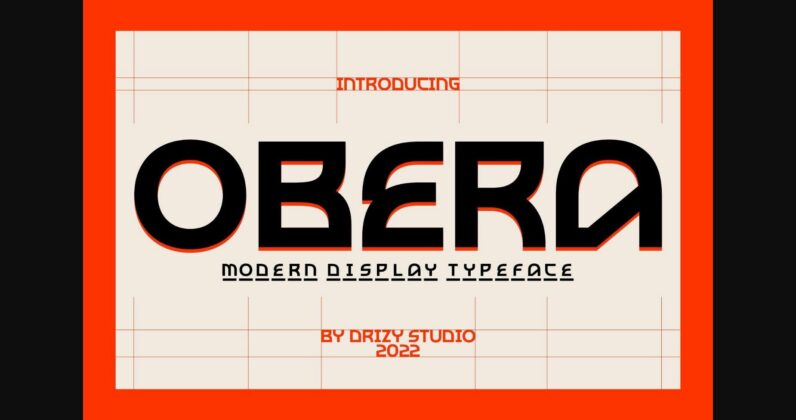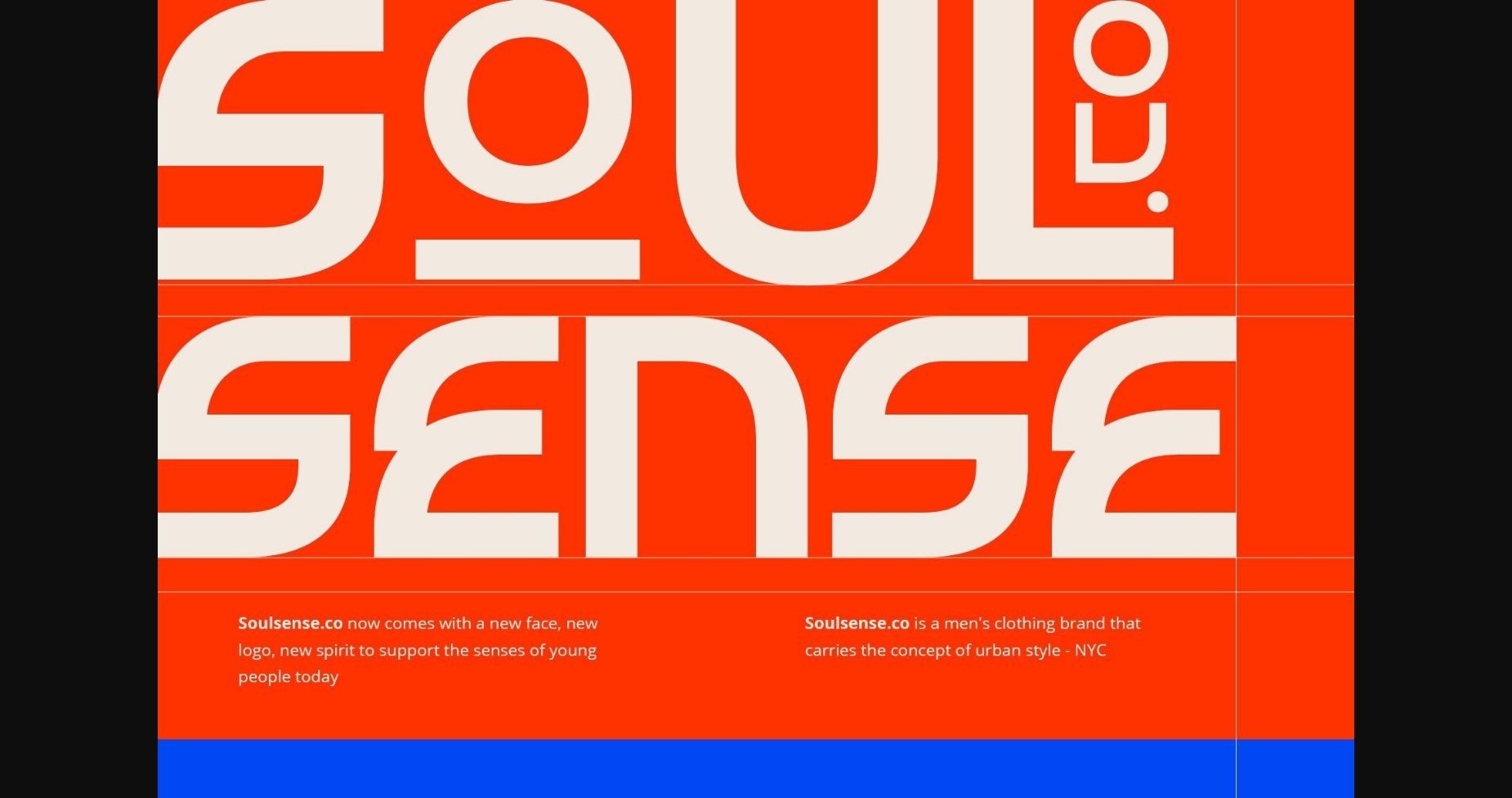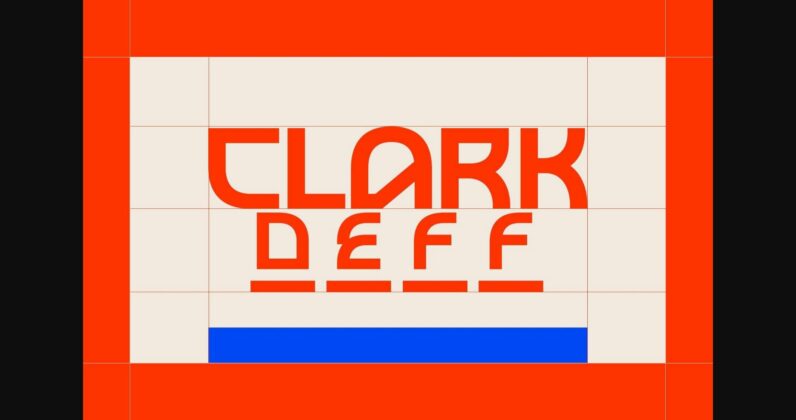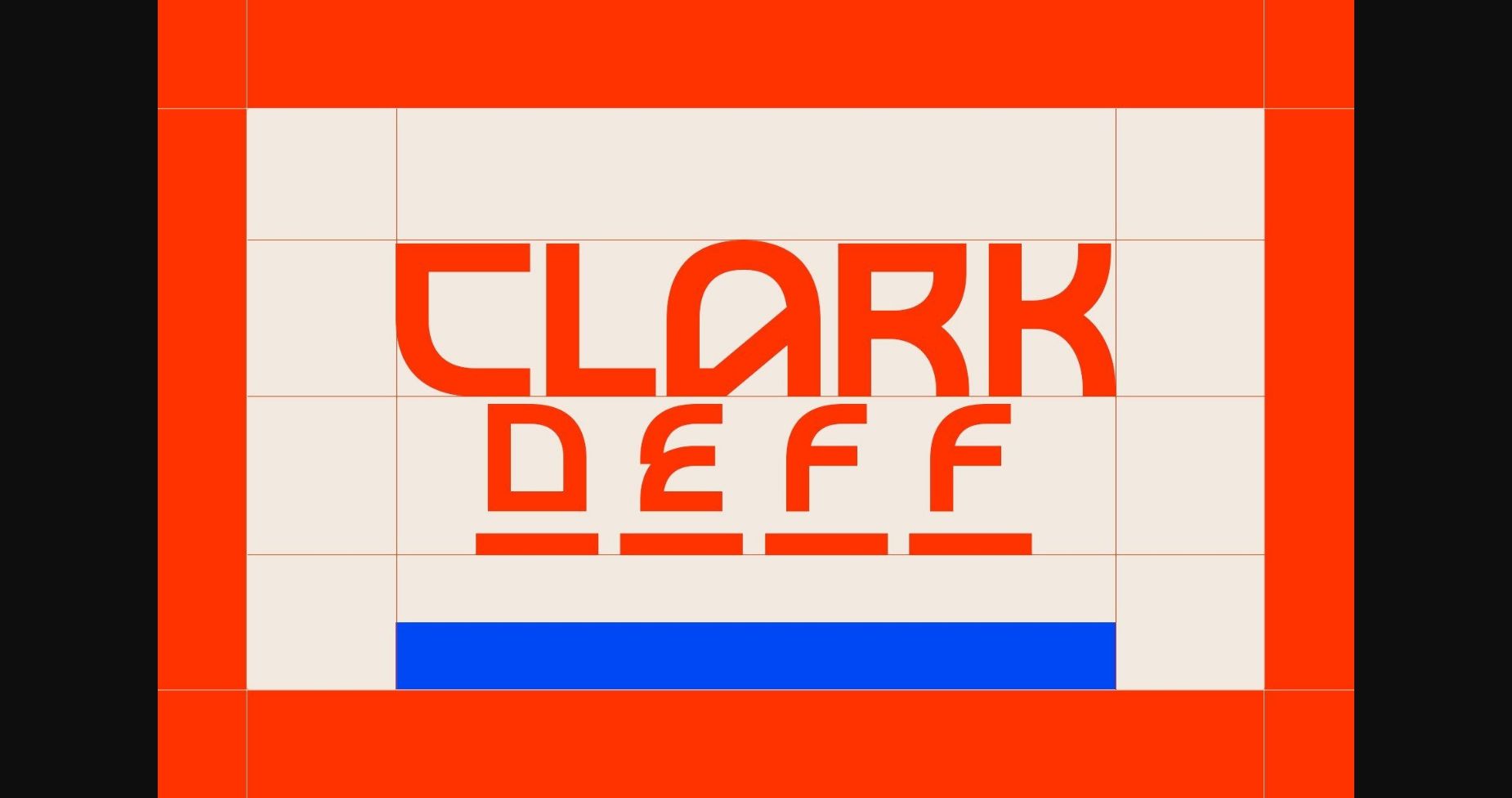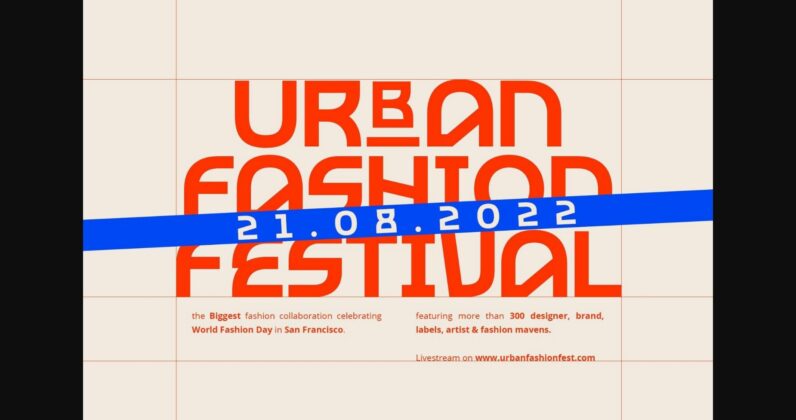
Obera Font
About Obera Font
Obera is a modern and bold sans serif font with a touch of ethnic and sci-fi in every form. Obera is great for creating eye-catching headlines, and logos, applicable for any type of graphic design.